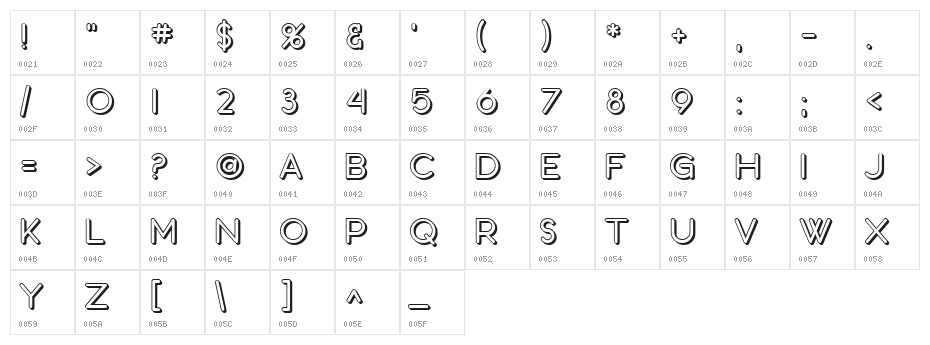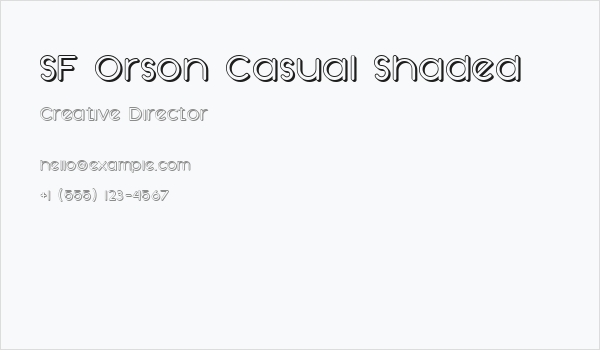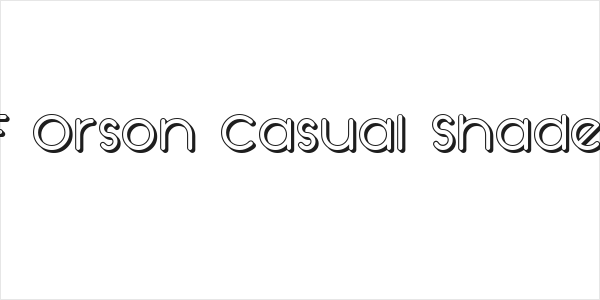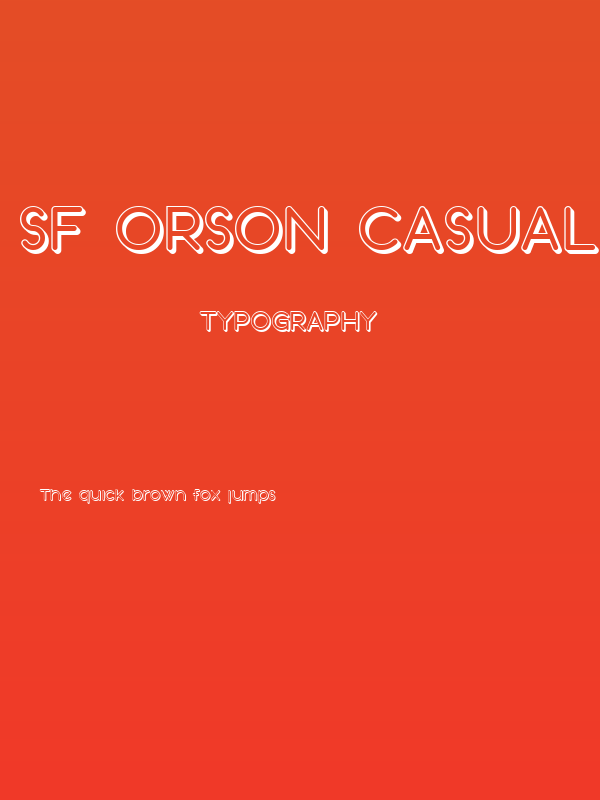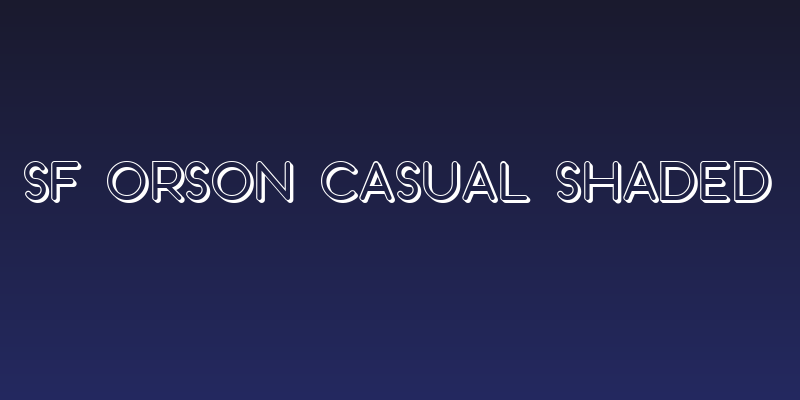
SF Orson Casual Shaded Font
SF Orson Casual Shaded Description
This font features a playful and casual design with a shaded outline that gives it a three-dimensional appearance. The characters are bold and rounded, with a consistent stroke width that enhances readability. The uppercase and lowercase letters maintain a uniform style, while the numerals and special characters complement the overall aesthetic. The font's unique shading effect adds depth and interest, making it suitable for eye-catching designs. Its clean lines and modern look make it versatile for various creative projects.